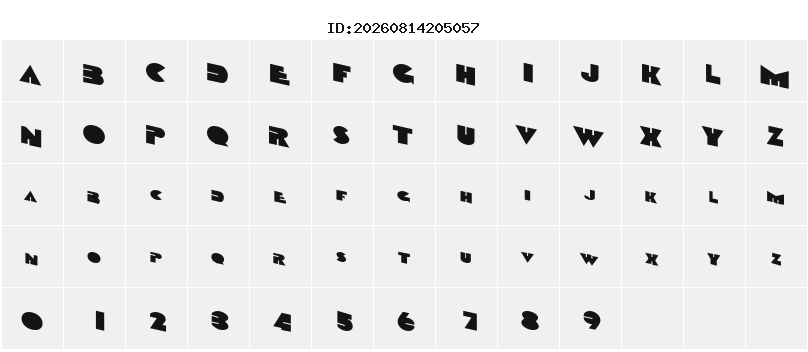
• Font Name: State ttnorm
• Full Font Name: State Regular ttnorm
About State ttnorm.ttf
State ttnorm.ttf is a modern, elegant sans-serif font designed for ultimate readability and visual harmony. Perfect for branding, headlines, web design, and print materials.